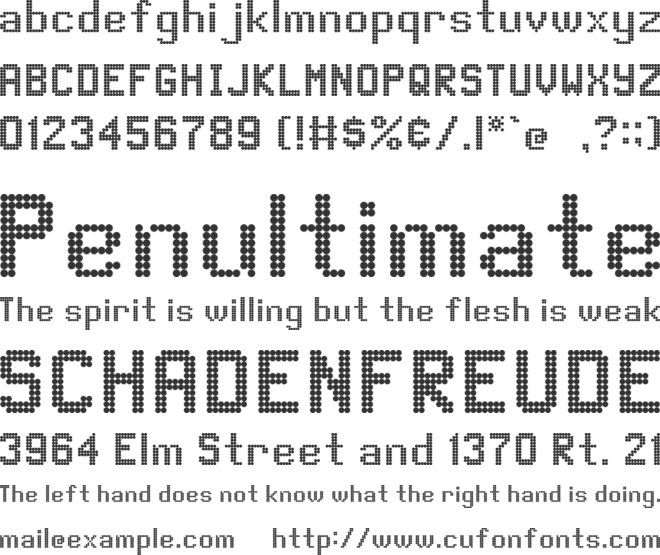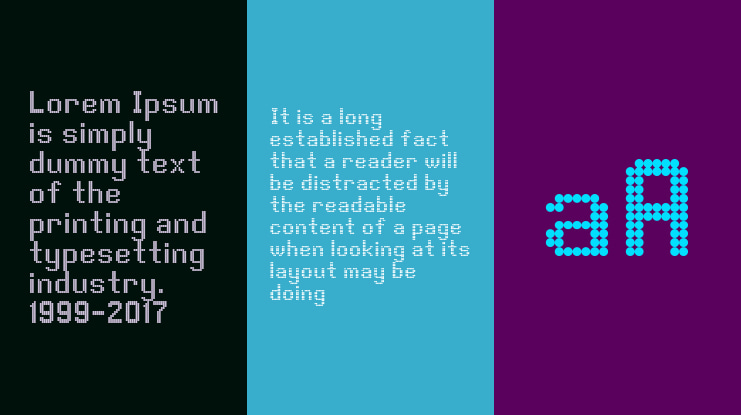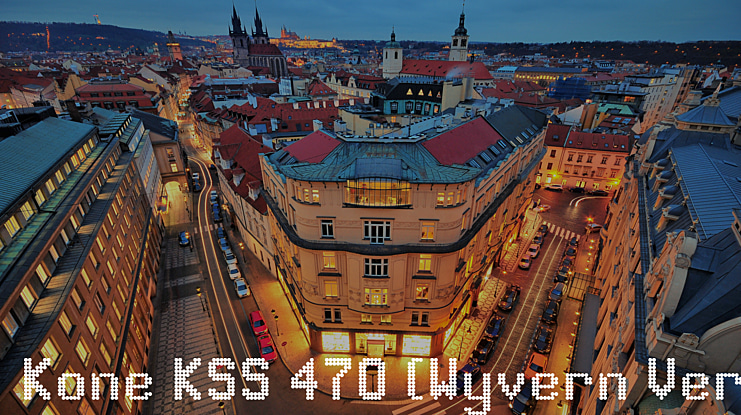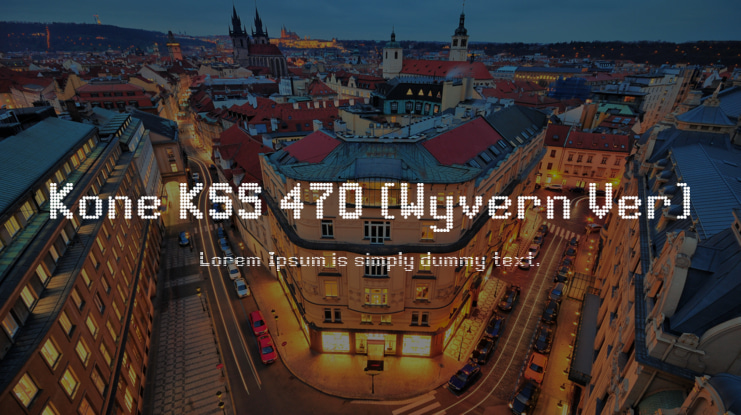
Kone KSS 470 (Wyvern Ver) Font
I'm an elevator enthusiast now lol
The font is inspired by KONE KSS 470's floor indicator, I know FontStruct has a few fonts similar to this, and I decided to remake the font my own way. It's free-to-use since it isn't originally mine (belongs to the elevator company KONE.)
Made on FontStruct.